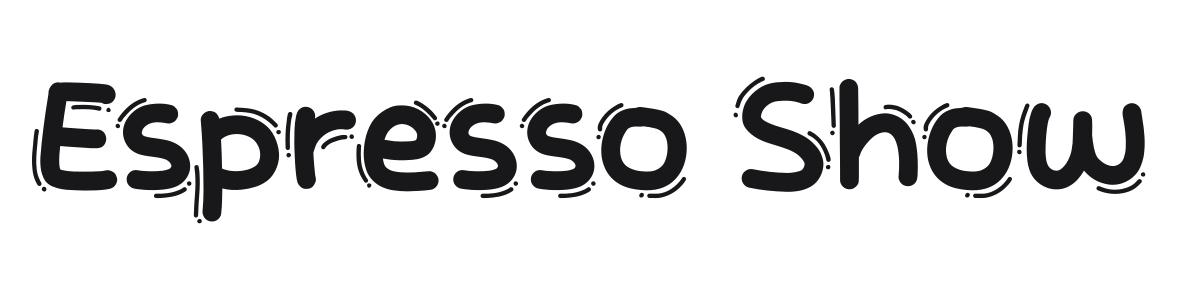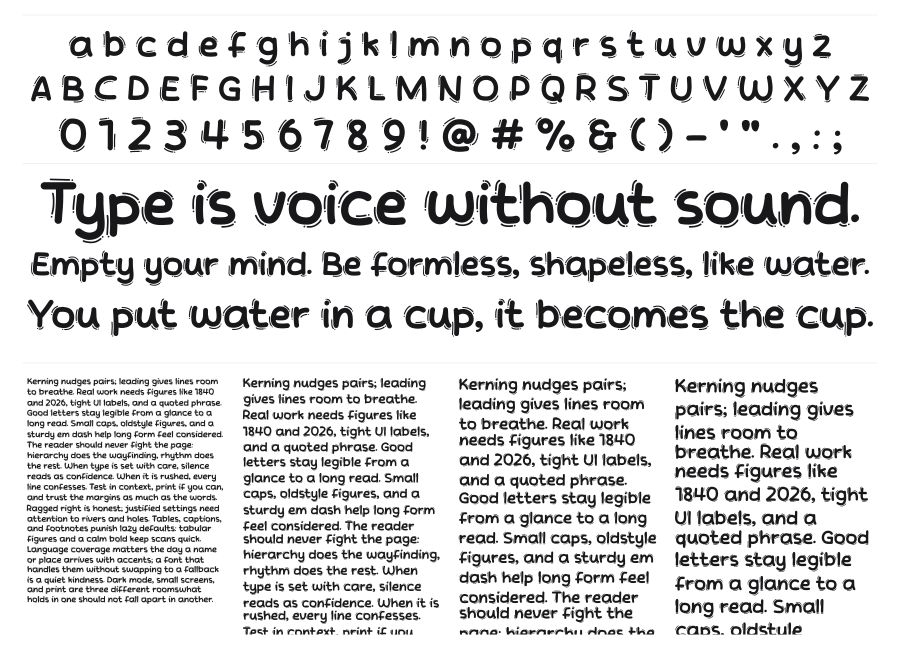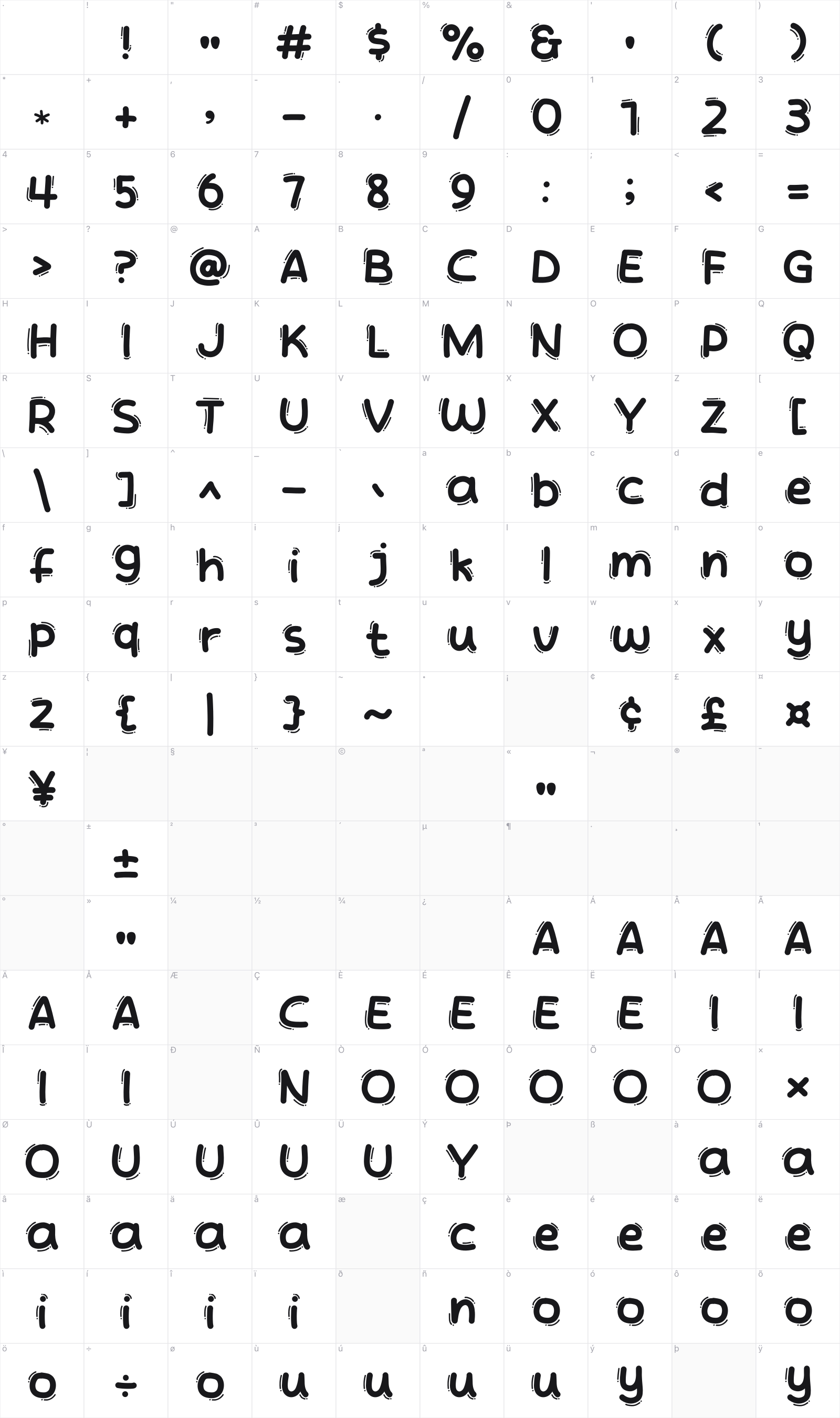
Espresso Show
Espresso Show is a bold, bubbly display font with a distinctive segmented outline effect that makes each letter look stitched or perforated at the edges. The rounded, inflated forms give it an irresistibly casual and comic energy. It works well for cafe branding, children's content, packaging, and anywhere a headline needs personality.